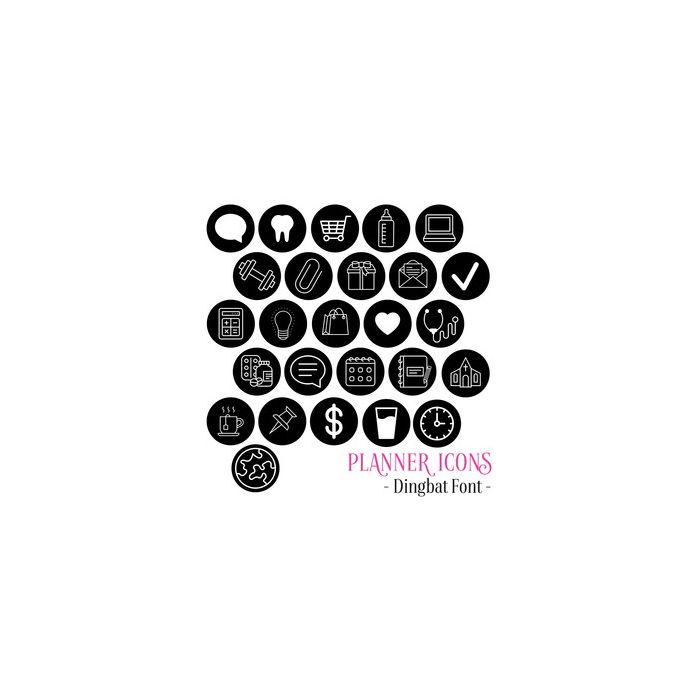
Planner icons Dingbat Font - All of the icons you need to make cute stickers, stamps and more for your planners! Contains 26 Planner Icons including Doctors, Church, Birthdays, Medication and Water Trackers! All are allocated to upper and lowercase letters.